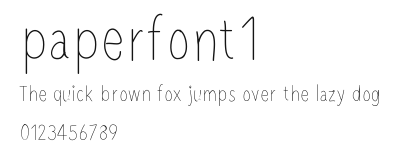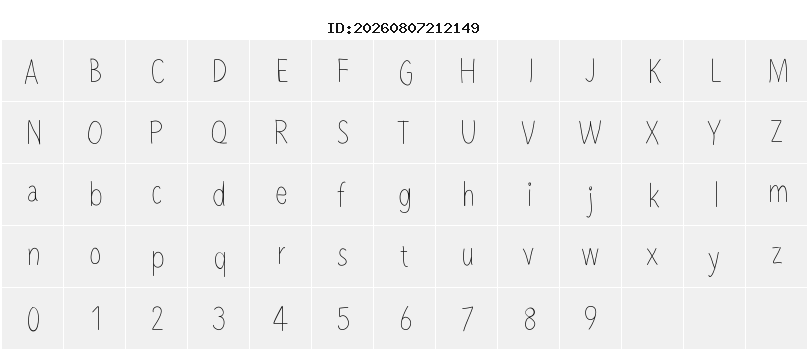
paperfont1 Preview
About paperfont1.ttf
paperfont1.ttf is a modern, elegant sans-serif font designed for ultimate readability and visual harmony. Perfect for branding, headlines, web design, and print materials.